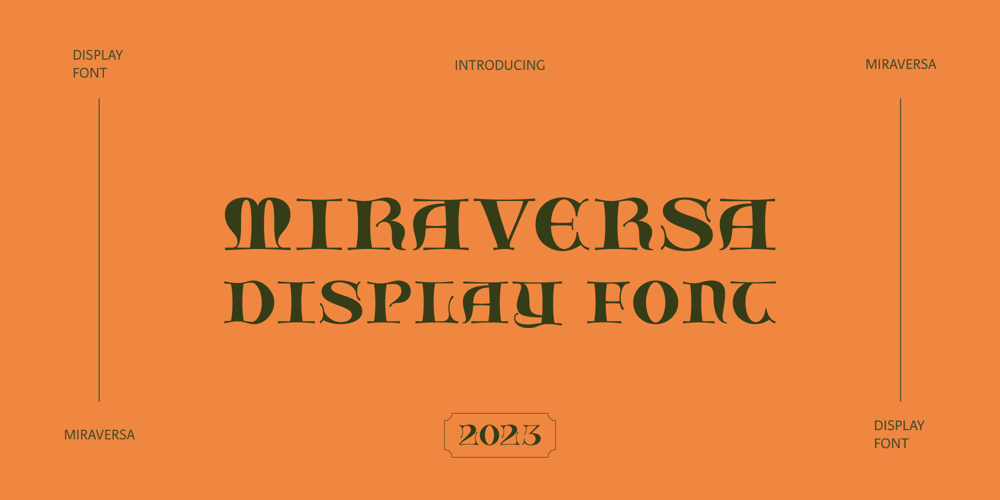
Miraversa Font Family was designed by Fernanda de Oliveira and published by Caligrafê. Miraversa contains 1 styles and family package options. Miraversa is a display font inspired by calligraphic capitals. It’s a typeface with characters of remarkable width, delicate serifs, and beautiful contrast. Most of the letterforms are round, with generous curves. It works as charming drop caps, beautiful titles, and nostalgic compositions. You can use this font on book/cover title designs, product labels, logos, posters and stationery.Features:Basic AlphabetAll Uppercase and PunctuationNumbers and SymbolsLanguage Support